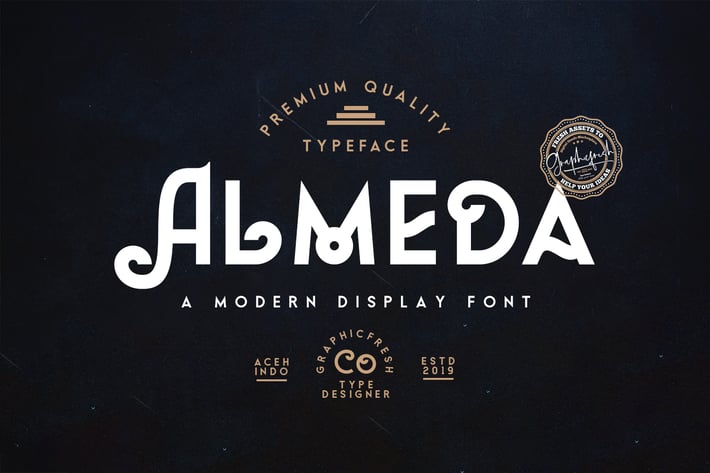
Almeda // A Modern Vintage Font
Almeda is a vintage display font. it's perfect for logos, name card, magazine layouts, invitations, headers, or even large-scale artwork. Almeda includes OTF & TTF files within the Zip folder.
1. Uppercase
2. Lowercase
3. Punctuation and Number
4. Multilingual Language
5. Alternate